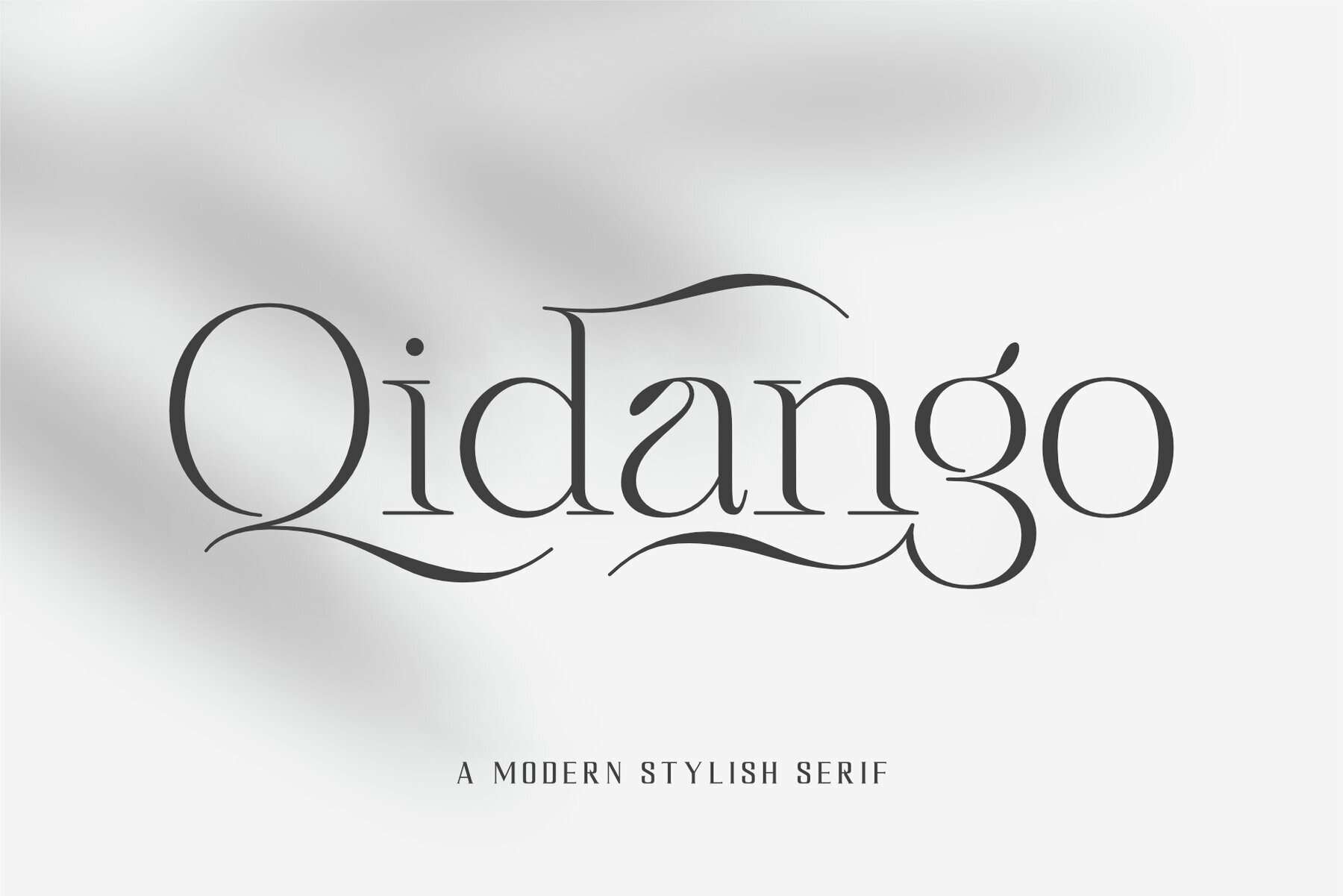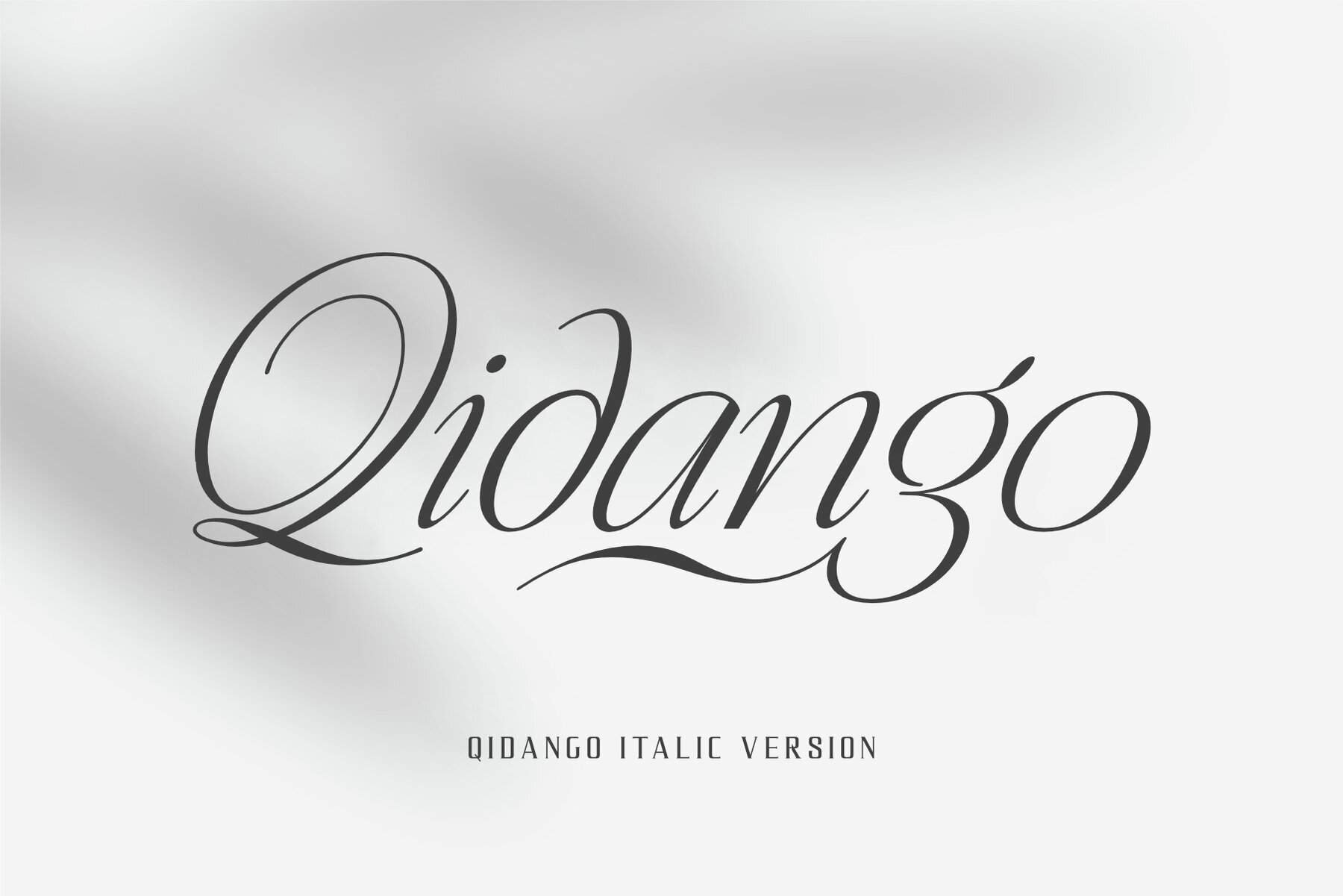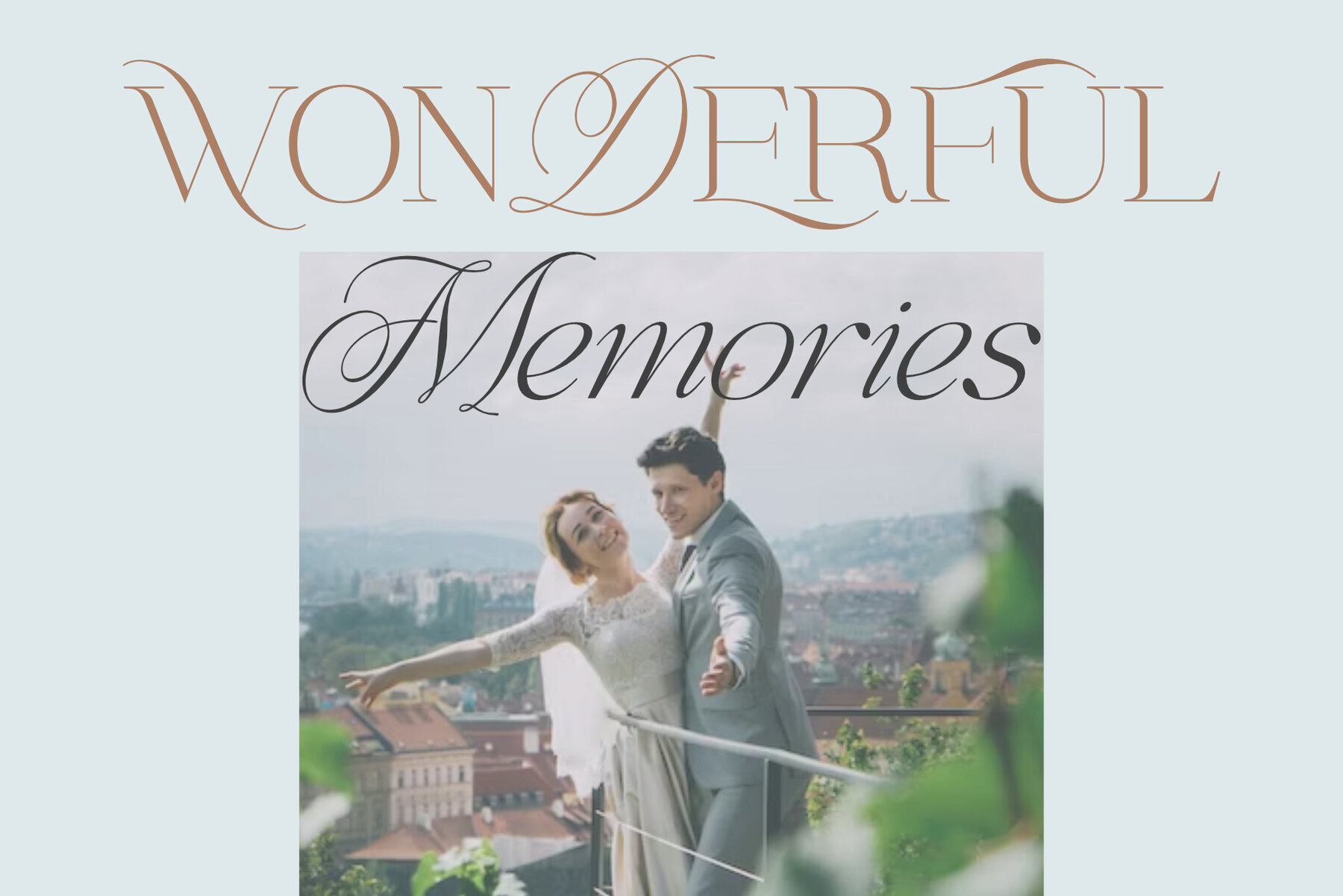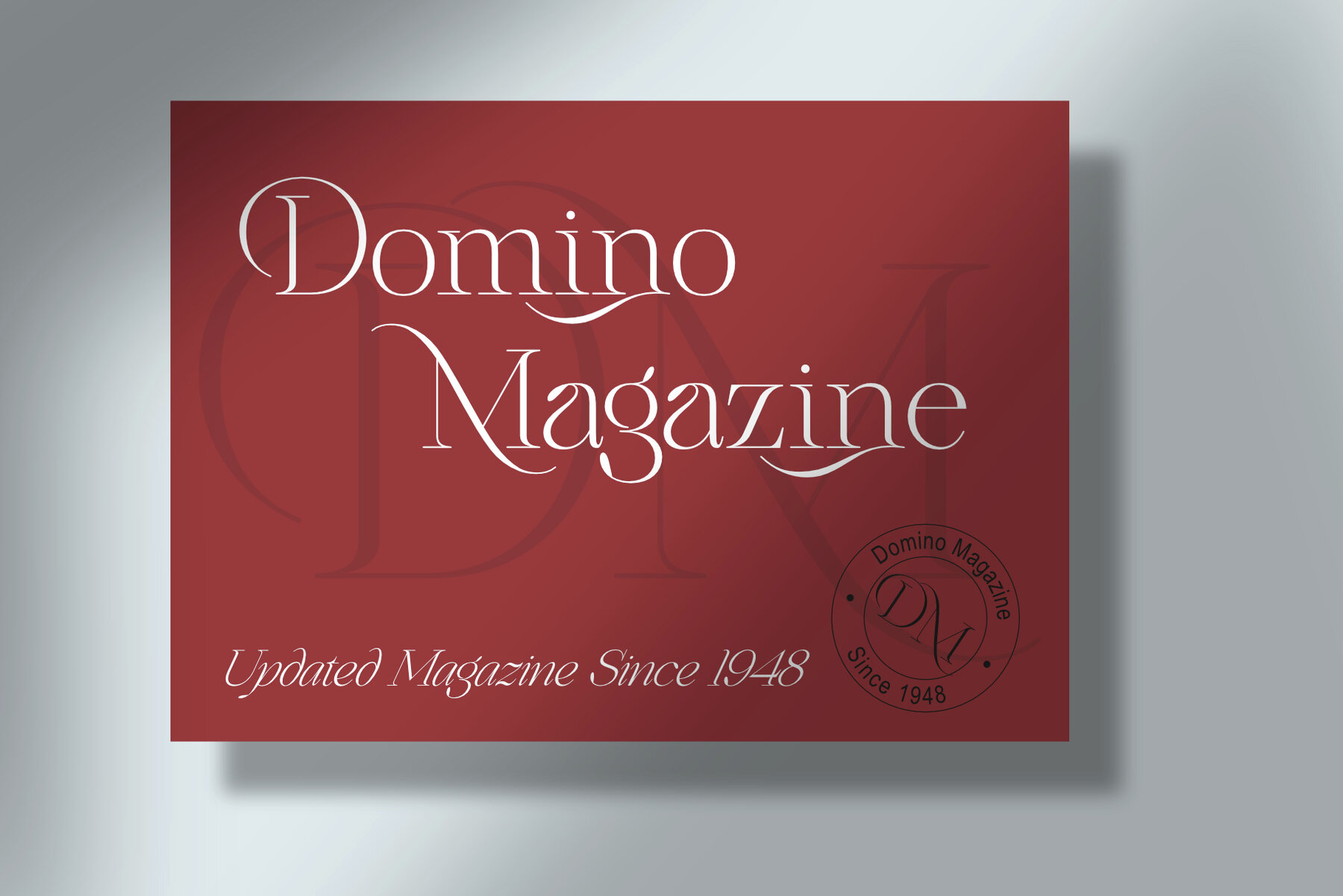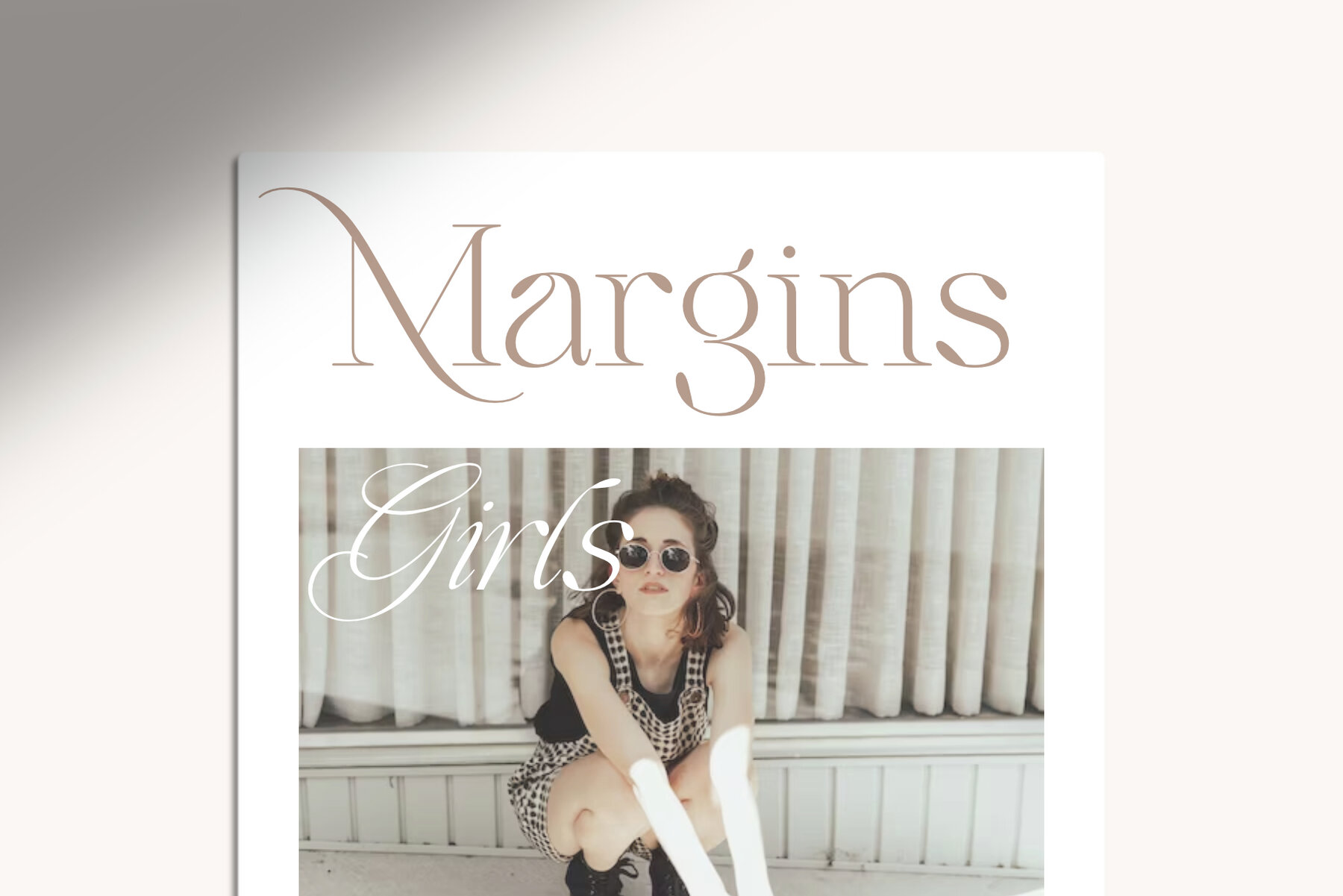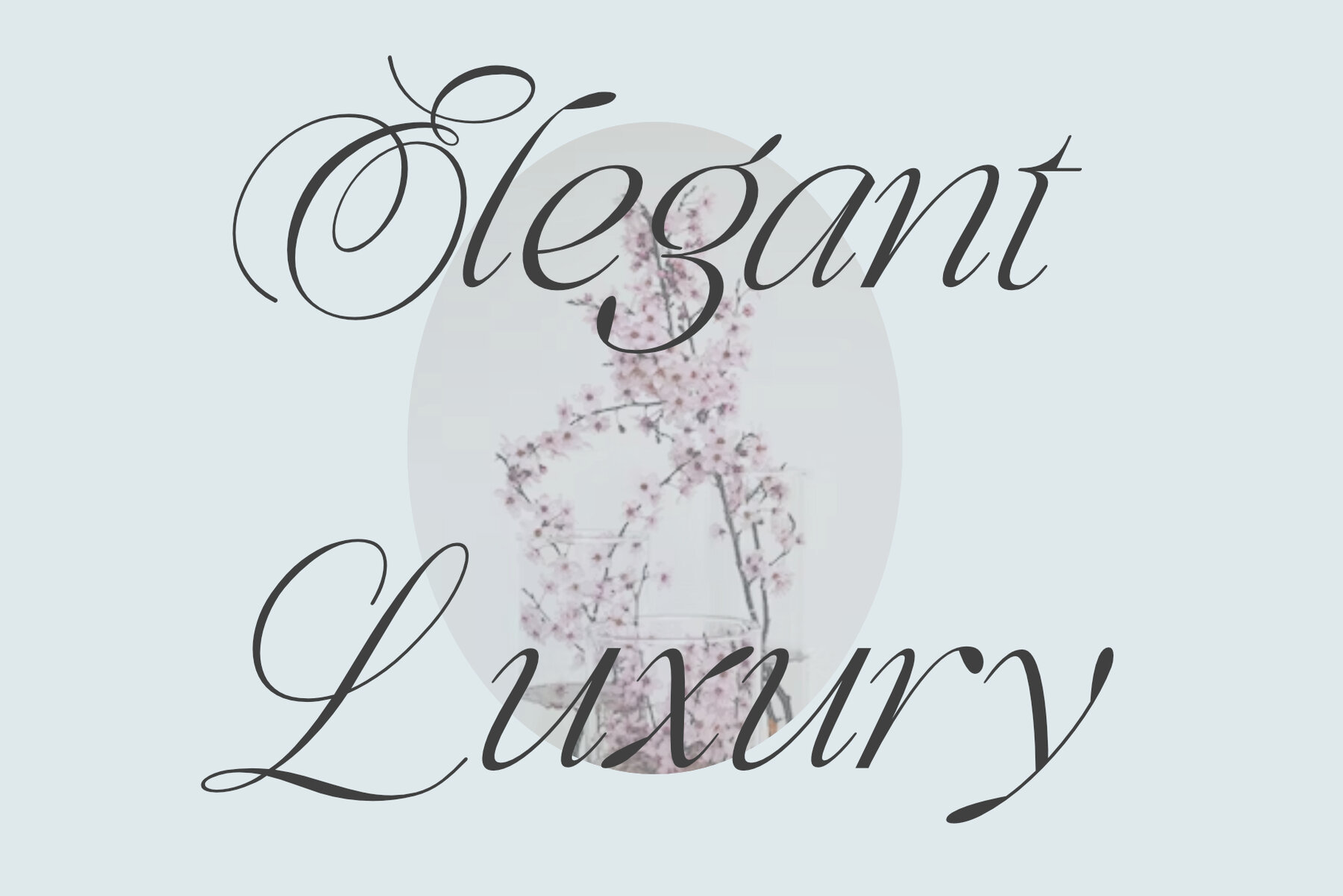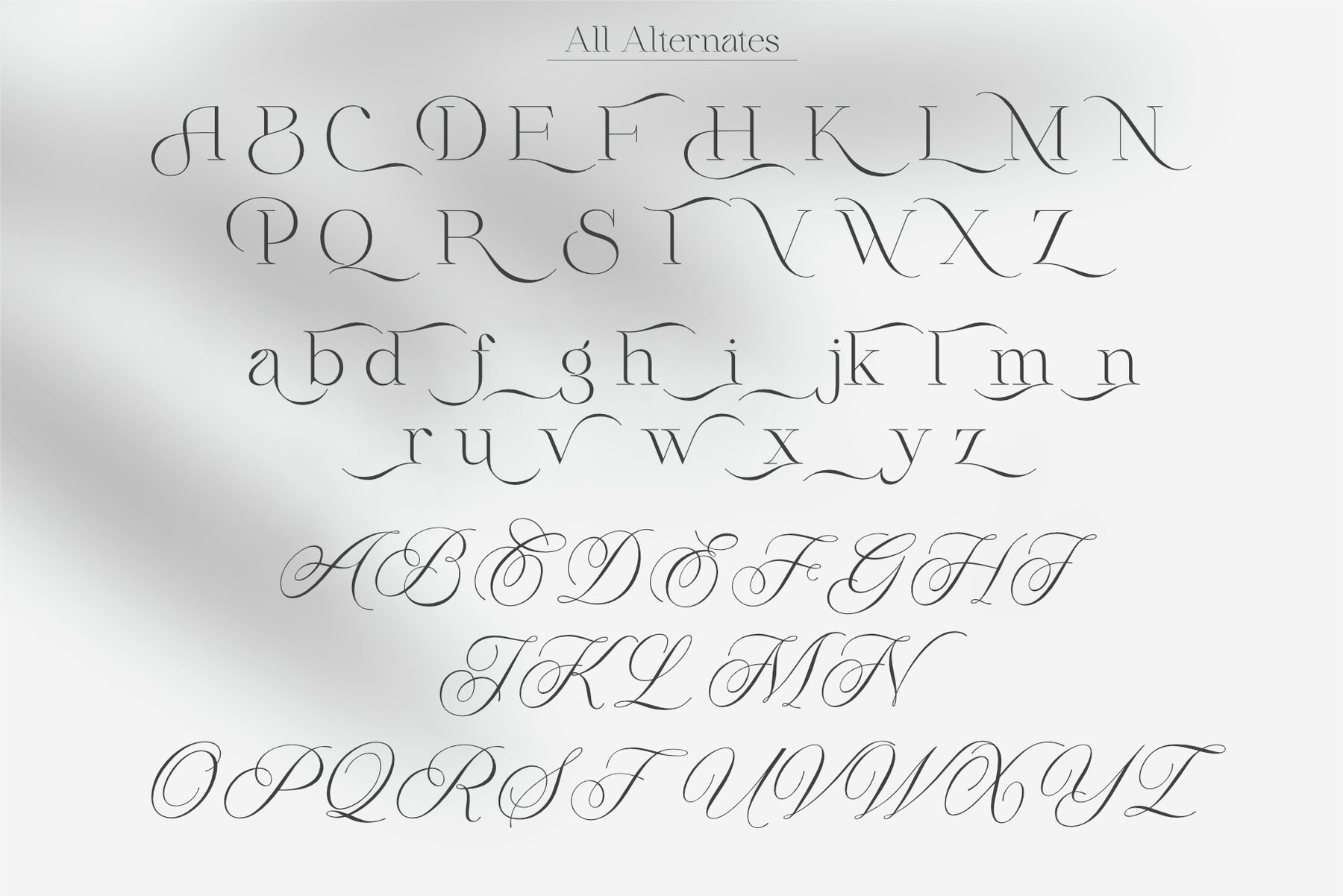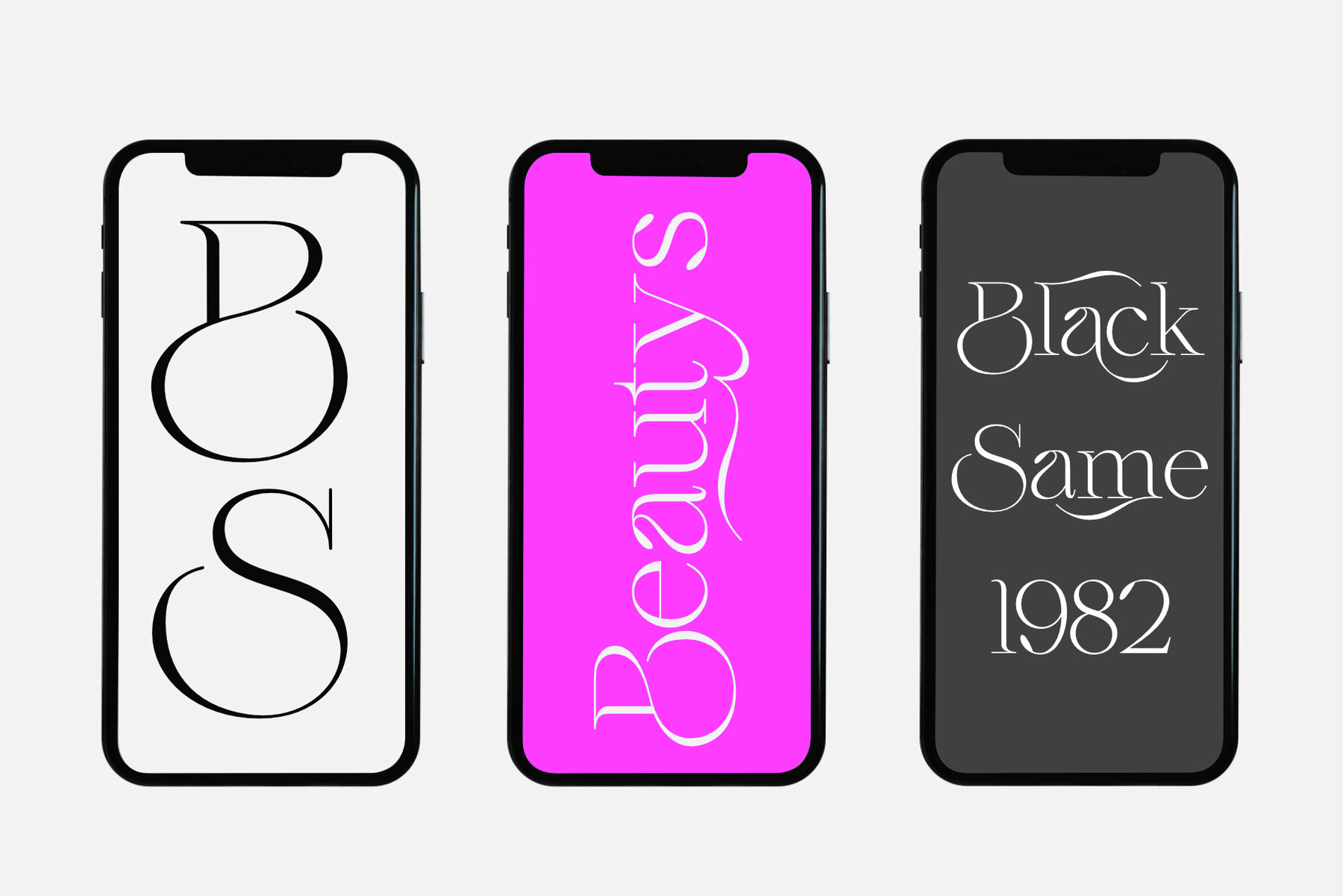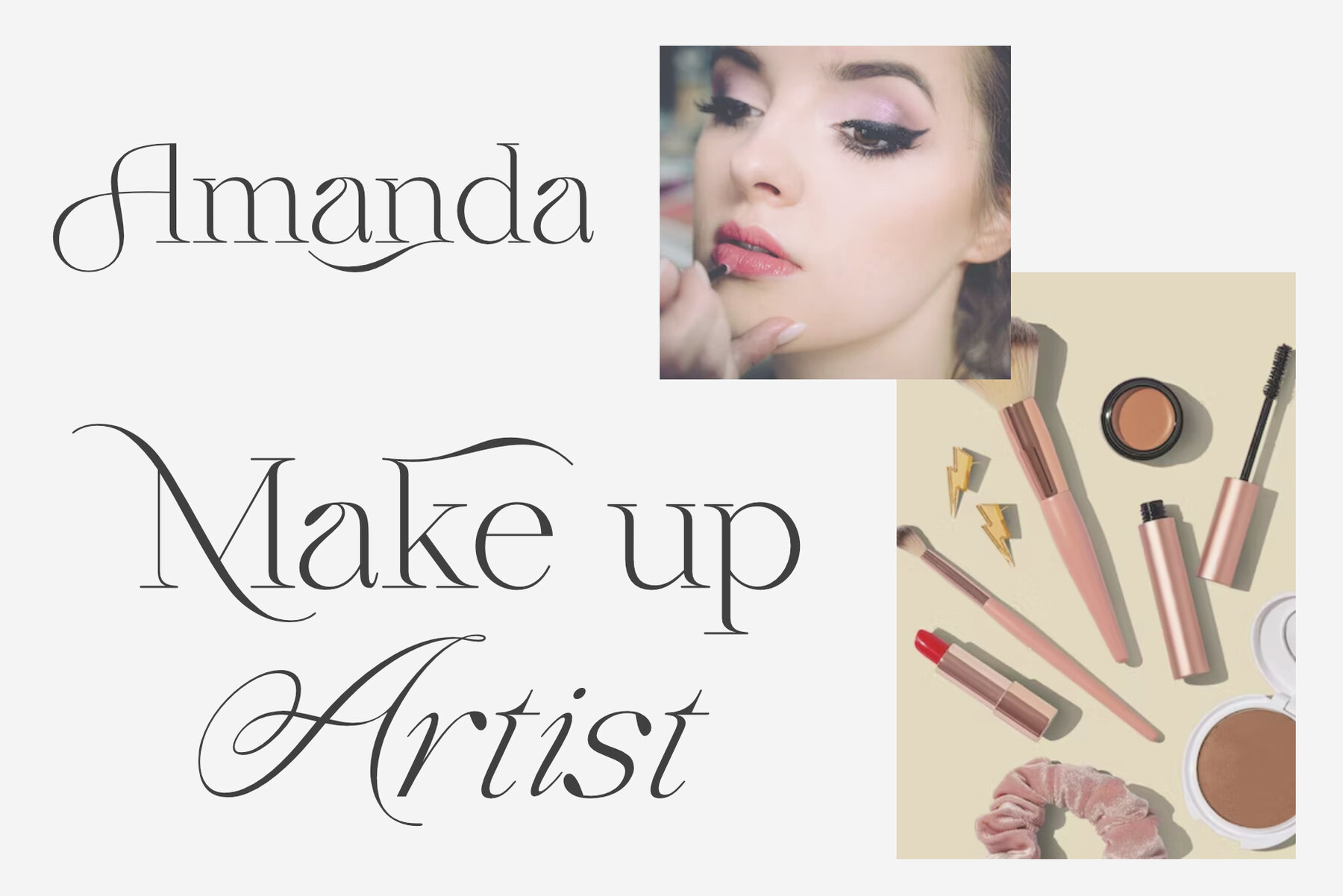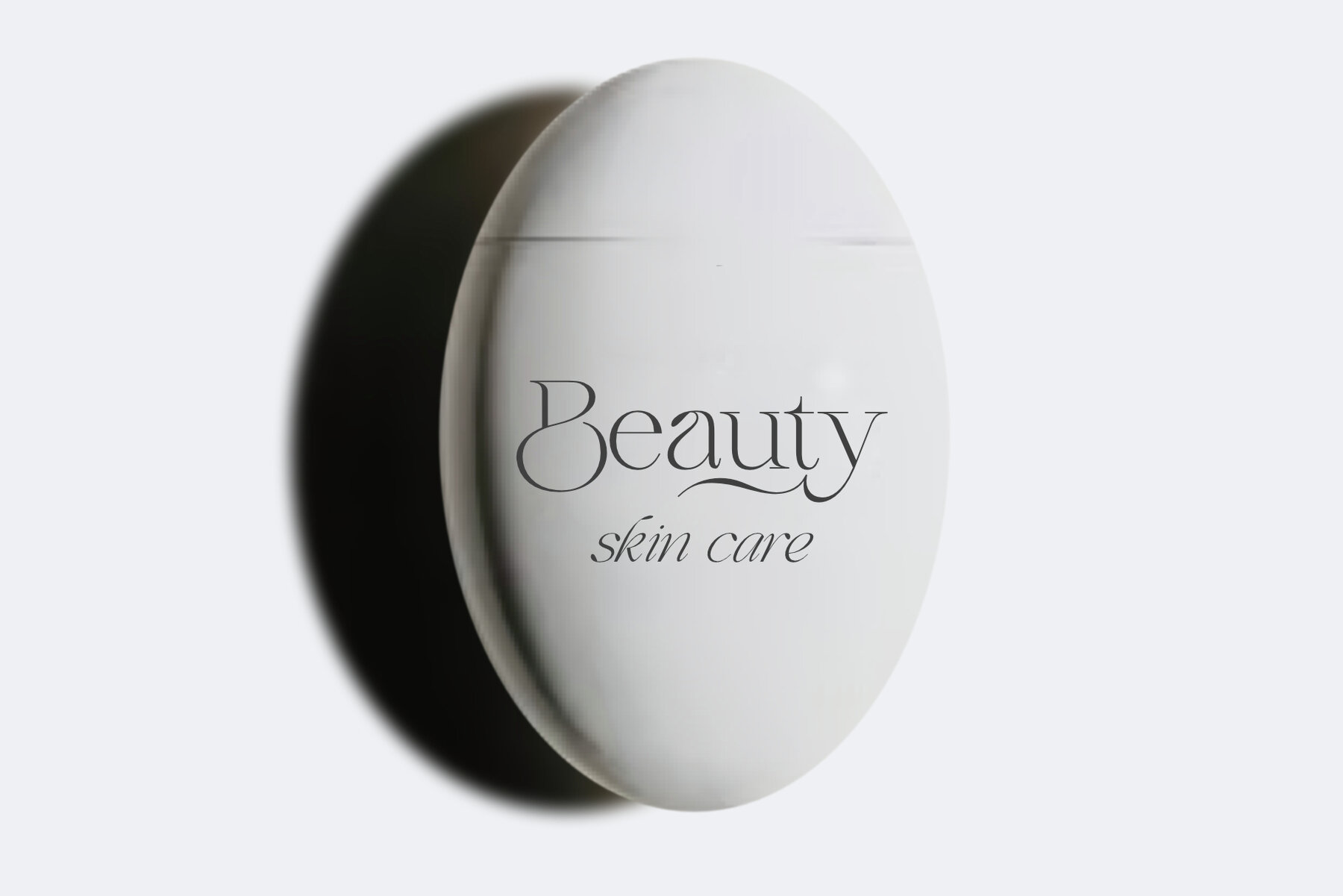
Qidango Font
Qidango is a serif typeface exuding elegance and luxury, with a touch of femininity and glamour. It is crafted to provide numerous variations for your creative projects, making it a versatile choice for any design need. This typeface features an italic style characterized by striking contrasts, subtle details, luxurious strokes, and voluptuous curves. It delivers a beautiful and powerful statement, merging glamour with contemporary aesthetics to enhance any typographic composition. The elegant serif of Qidango enhances unlimited variations for creative projects such as: Qidango is a true labor of love, designed to be both enjoyable and easy to use. We look forward to seeing how you incorporate it into your designs. Share your creations with Sealoung and Qidango to show your work. Enjoy exploring the limitless possibilities with Qidango!Qidango: Elegant Serif Typeface with Luxurious Curves